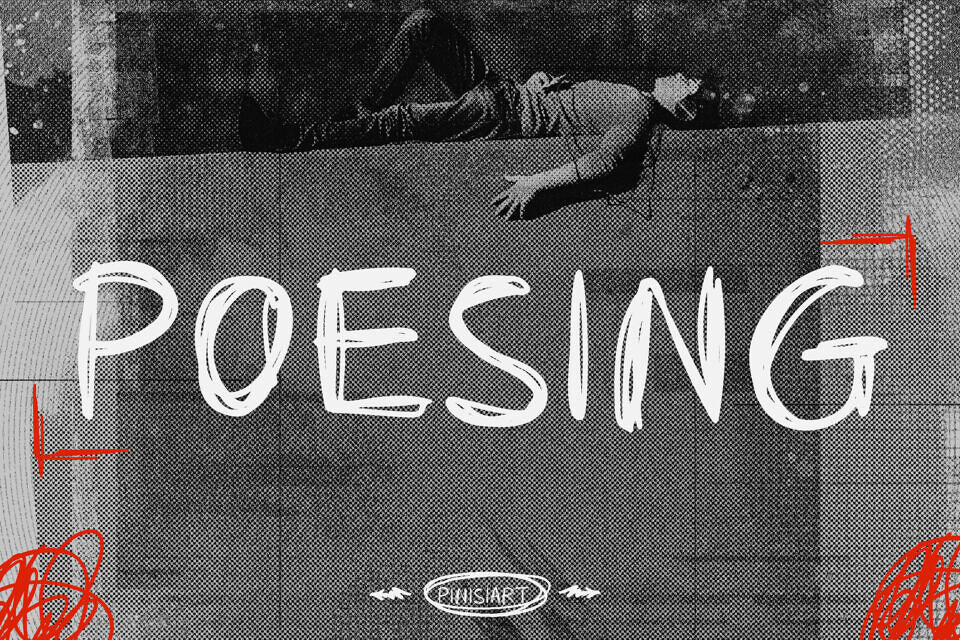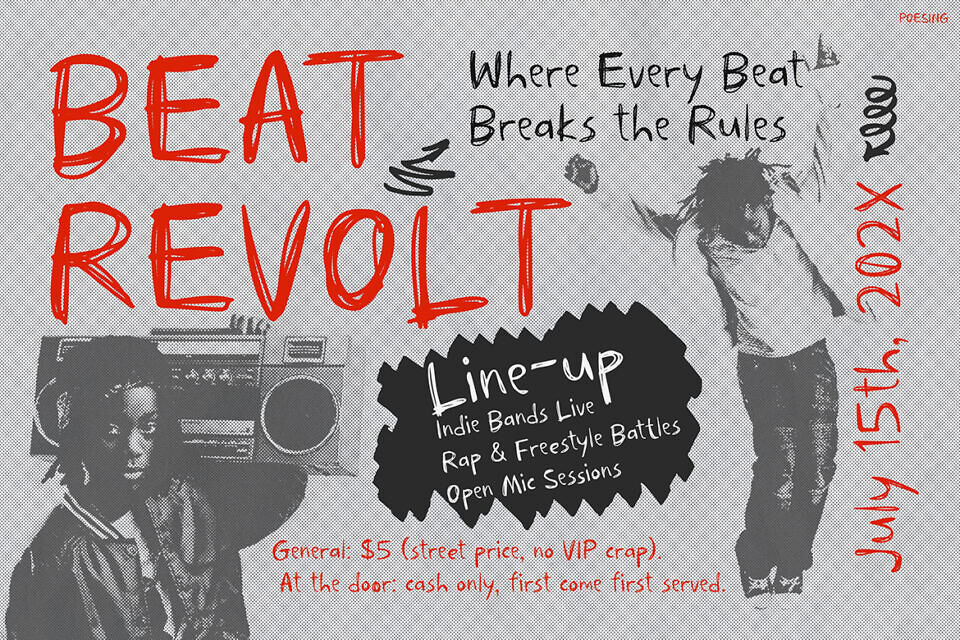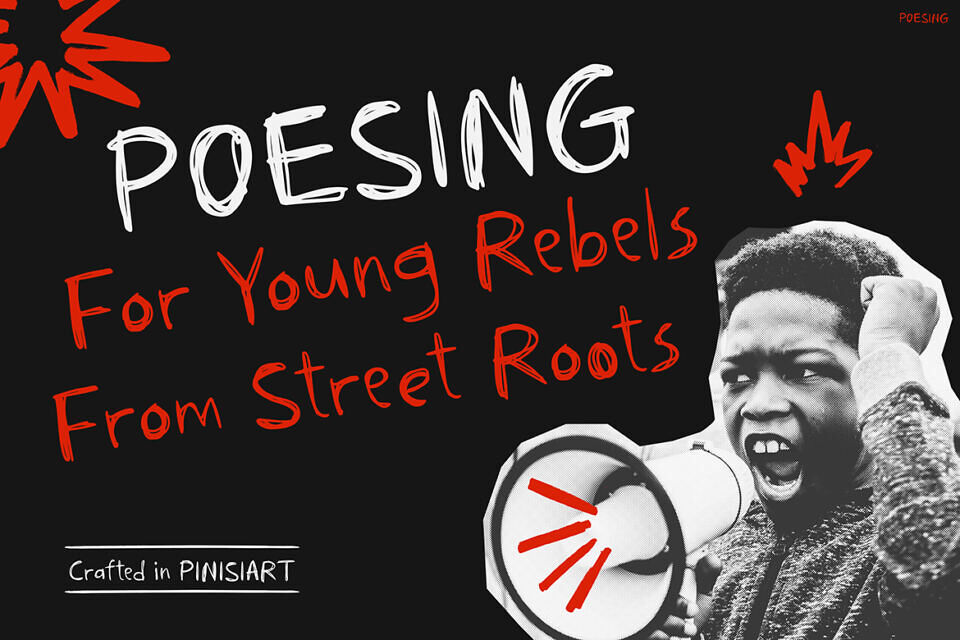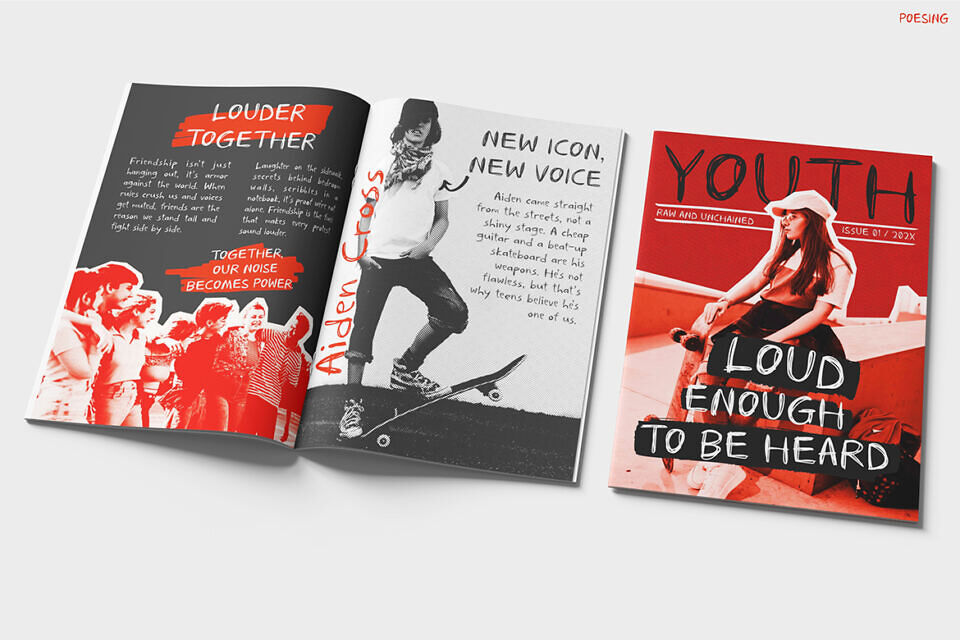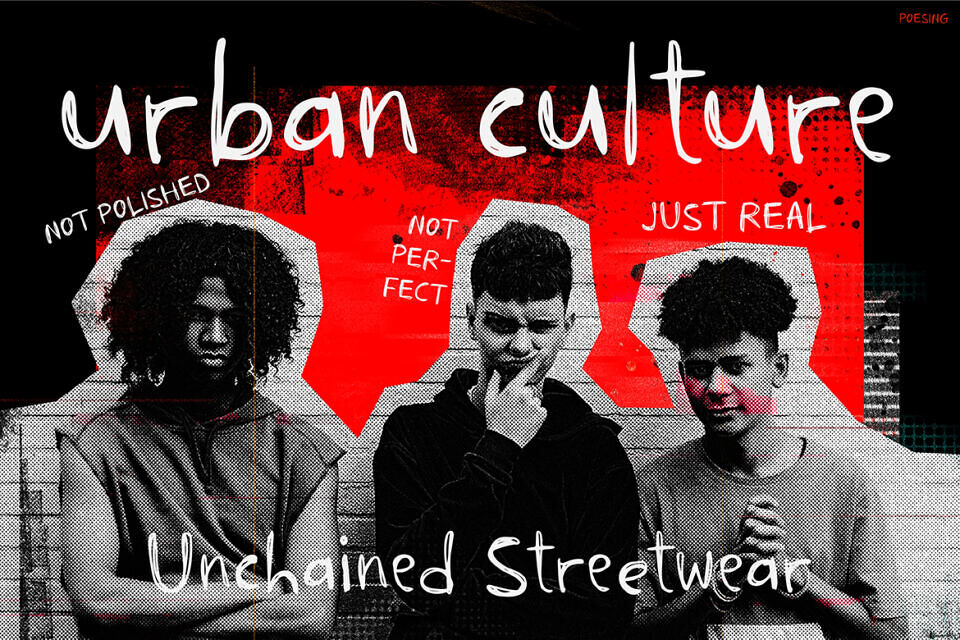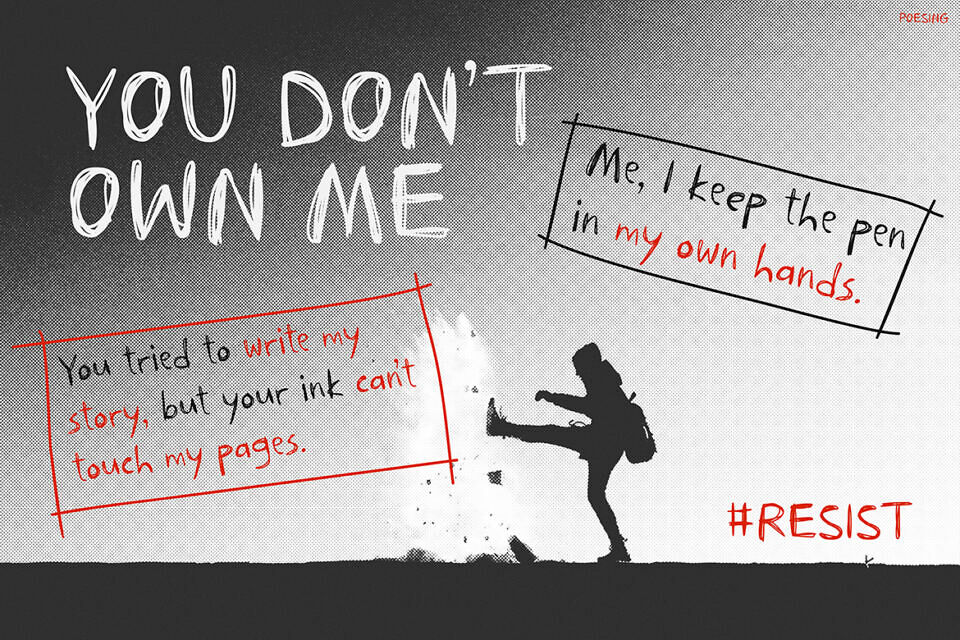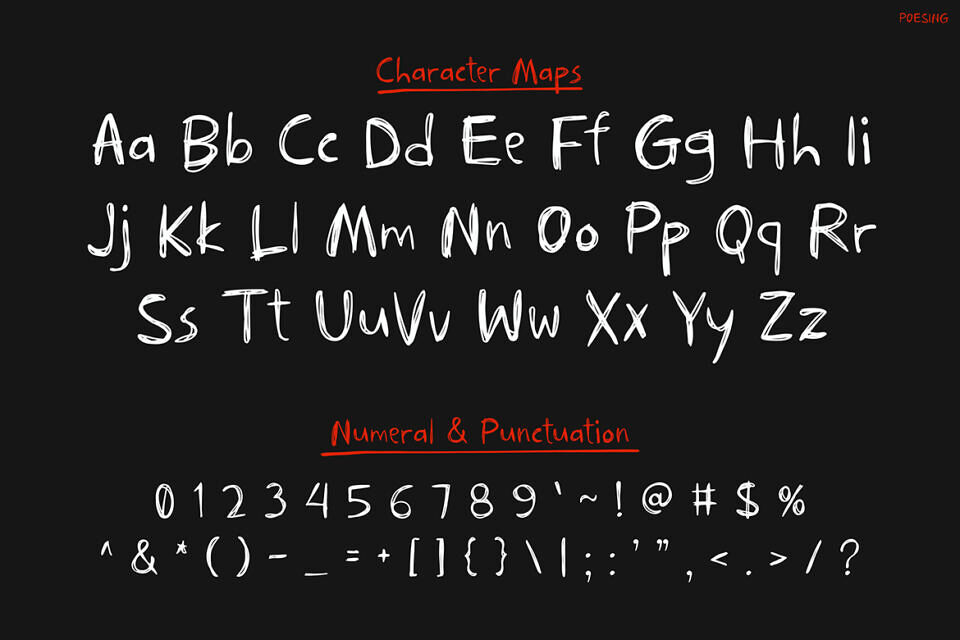
Poesing is a bold, rebellious handwriting typeface that transforms imperfections into raw visual power. With jagged edges, bold slants, and scribbled textures, it delivers fearless energy and authenticity to every design.
Inspired by graffiti, protest art, and underground culture, Poesing embodies the untamed spirit of youth that demands visibility. Perfect for posters, streetwear, digital media, and bold branding, this font fuses gritty artistry with modern versatility.